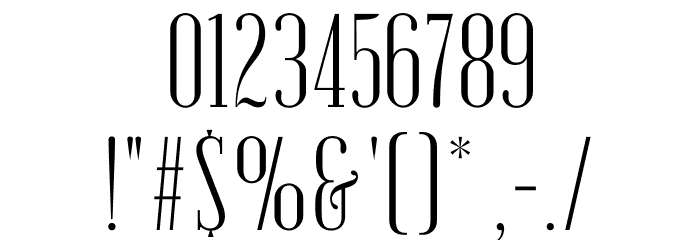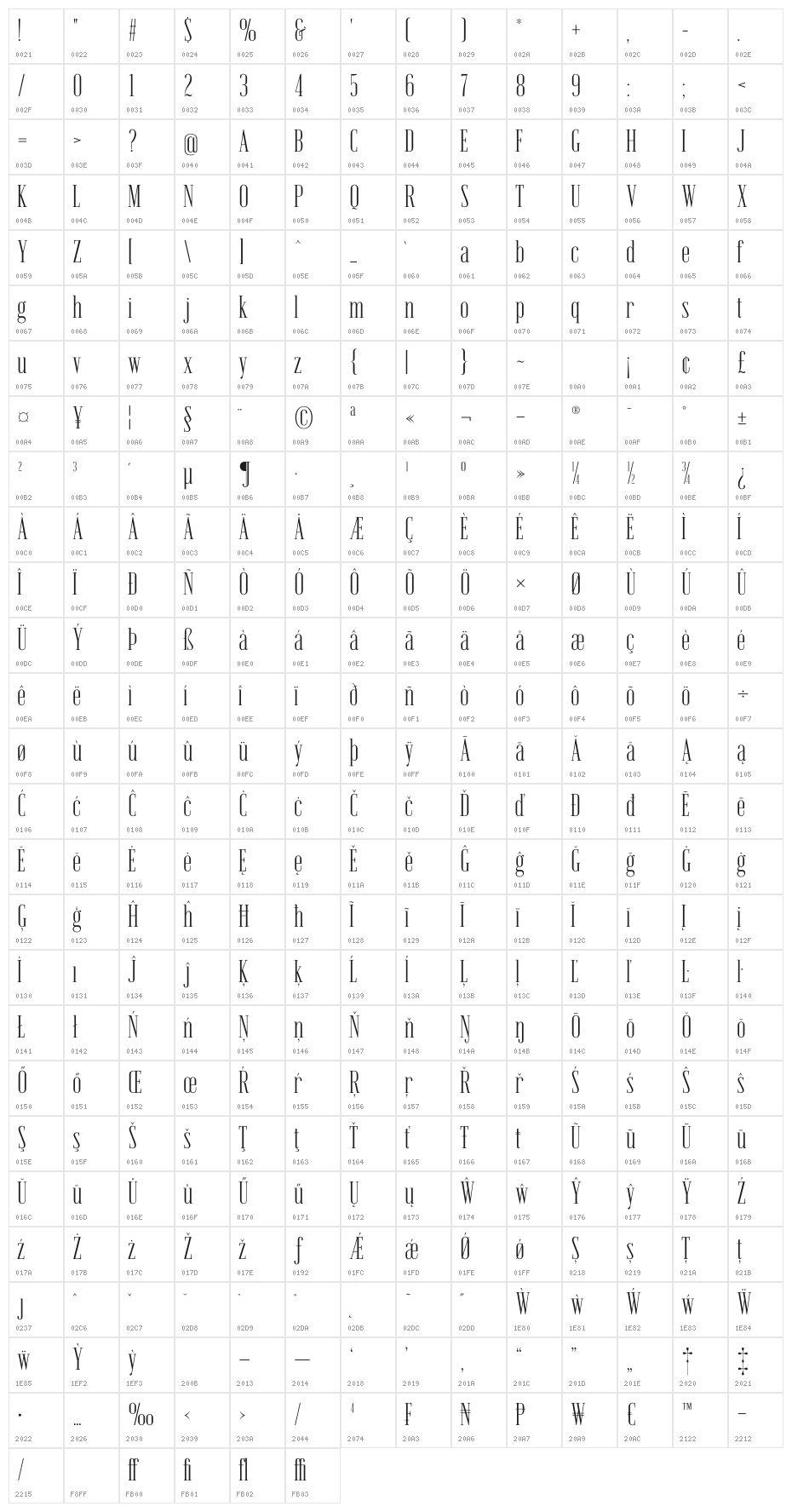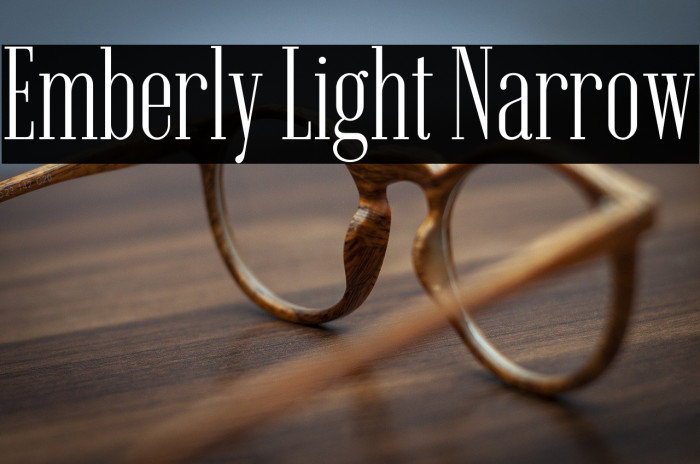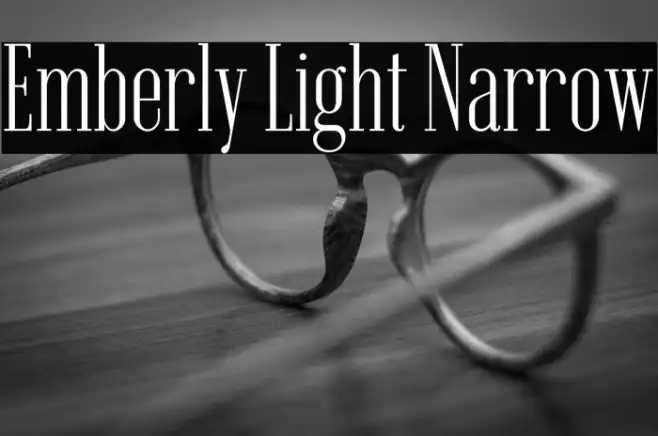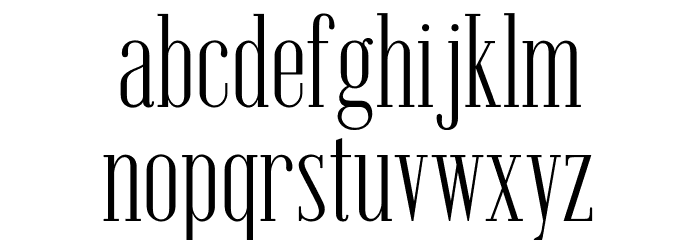
This font features a refined and elegant design with a narrow structure, giving it a sophisticated and modern appearance. The characters are tall and slender, with a high contrast between thick and thin strokes, which adds a touch of elegance and readability. The uppercase letters are particularly striking, with sharp serifs and a clean, crisp finish. The lowercase letters maintain the same level of sophistication, with a consistent style that complements the uppercase set. The numerals are well-proportioned and align perfectly with the overall aesthetic, making them suitable for a variety of uses. The special characters are thoughtfully designed, ensuring they integrate seamlessly with the rest of the font. This font's narrow width and light weight make it ideal for projects that require a touch of class and modernity.
| Use Case | Headlines, Logos, Editorial design |
| Proposed Projects | Ideal for luxury branding, editorial design, wedding invitations, and high-end product packaging. |